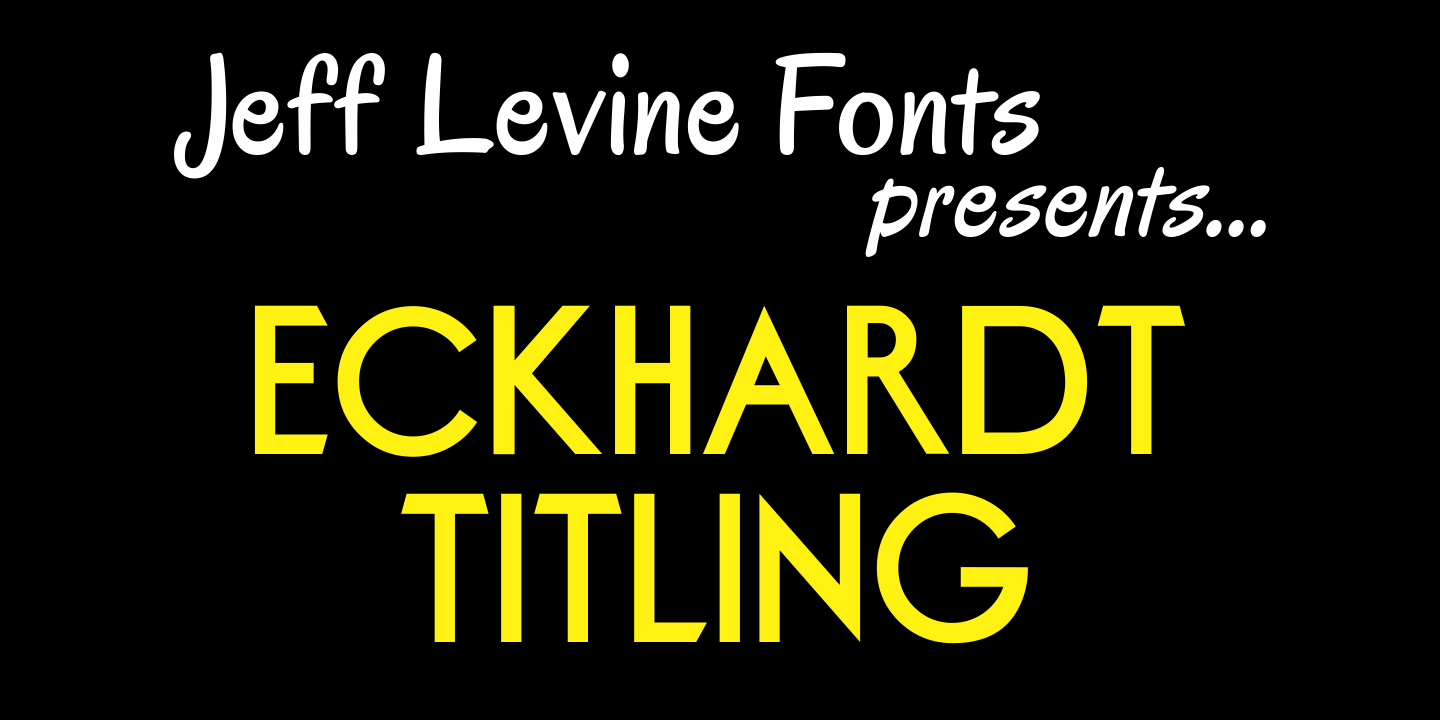
Eckhardt Titling
Eckhardt Titling JNL is another treatment of a past popular typeface that lends itself well to the hand-lettered sign and display work of days past. A clean sans serif with a slight touch of Art Deco, this font renders well from small point sizes to large posters.
As with other fonts in this series, the font is named in honor of Jeff Levine's good friend Albert Eckhardt, Jr. who owned Allied Signs in Miami, Florida from 1959 until his passing.